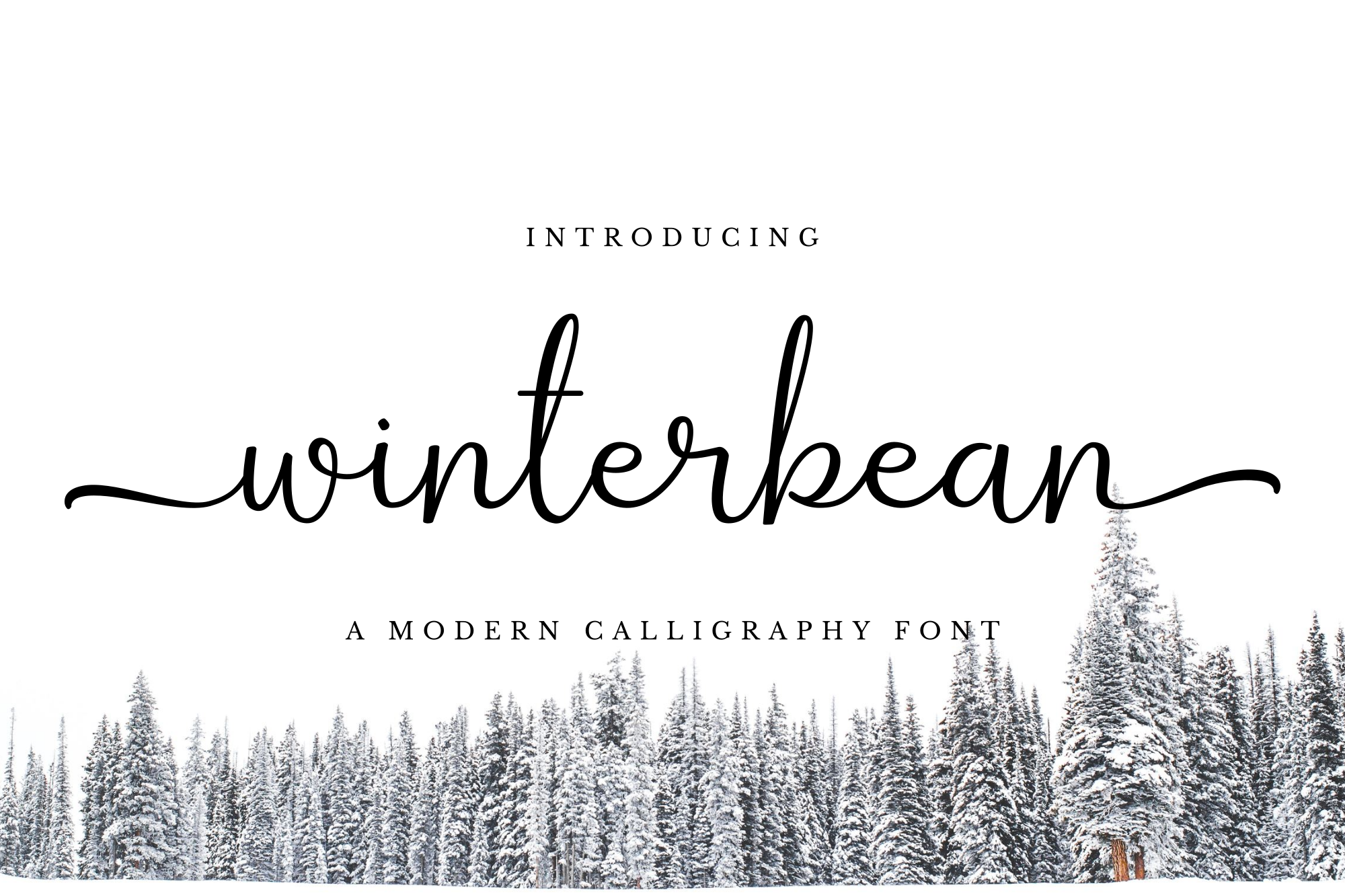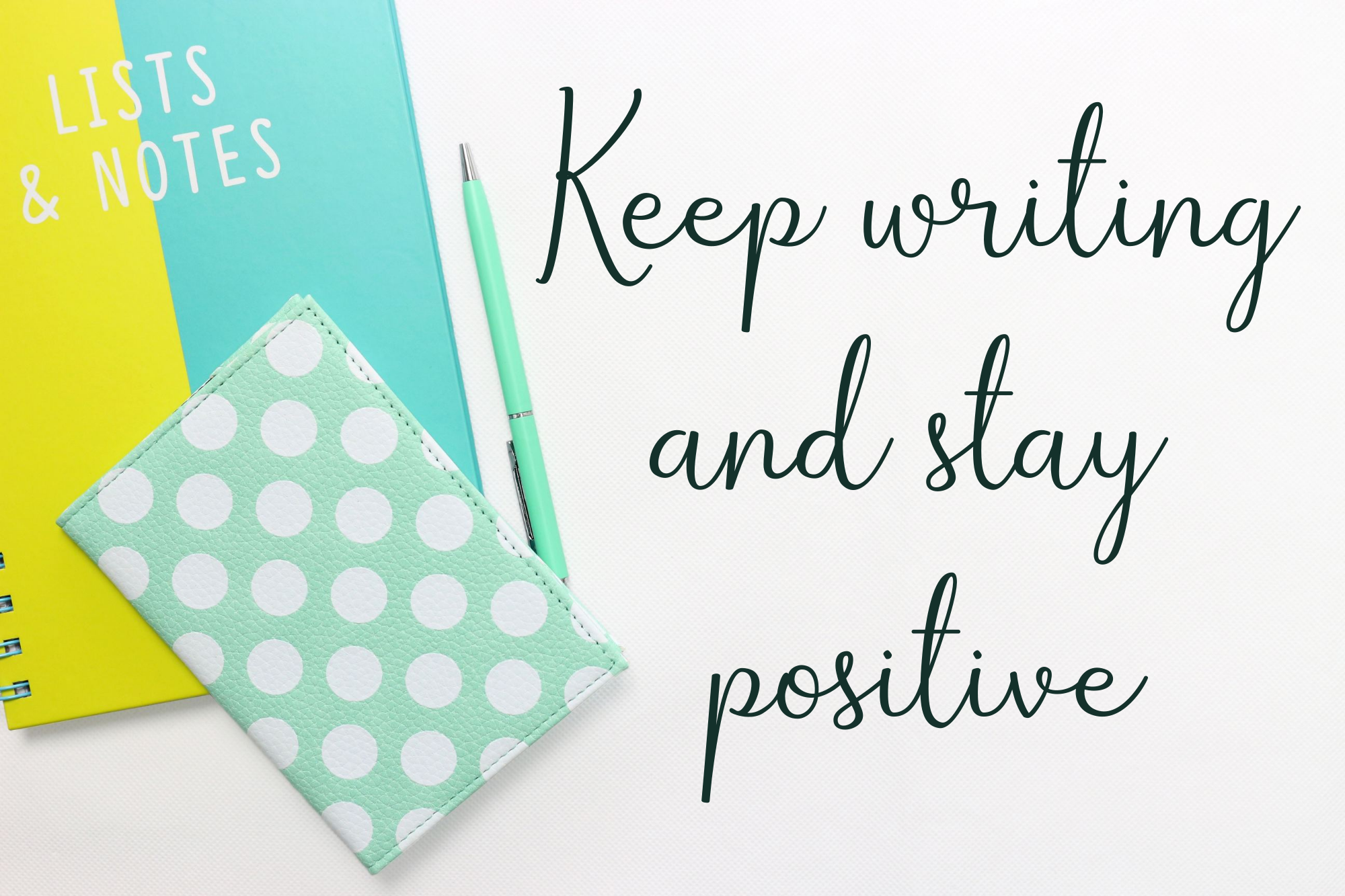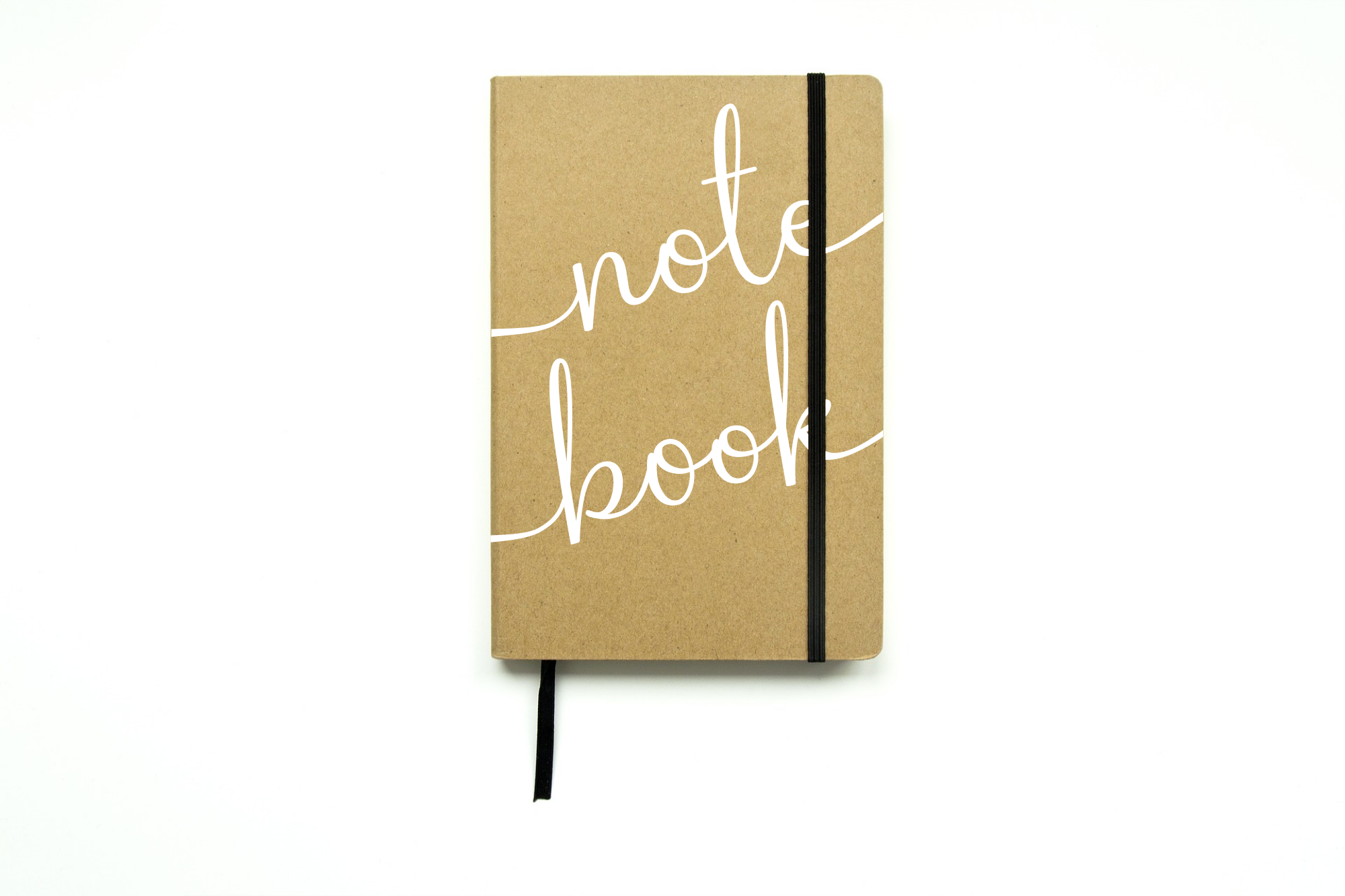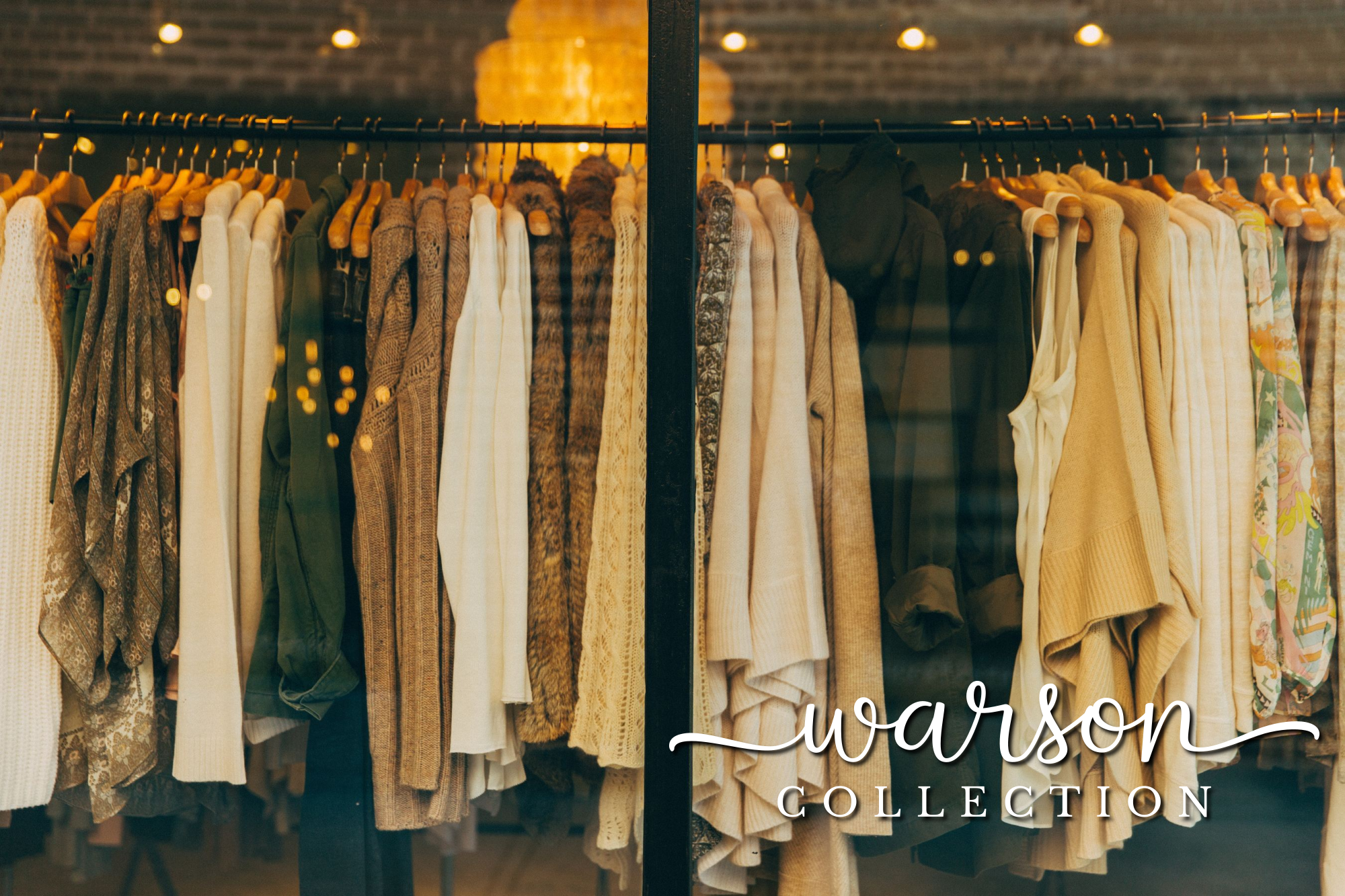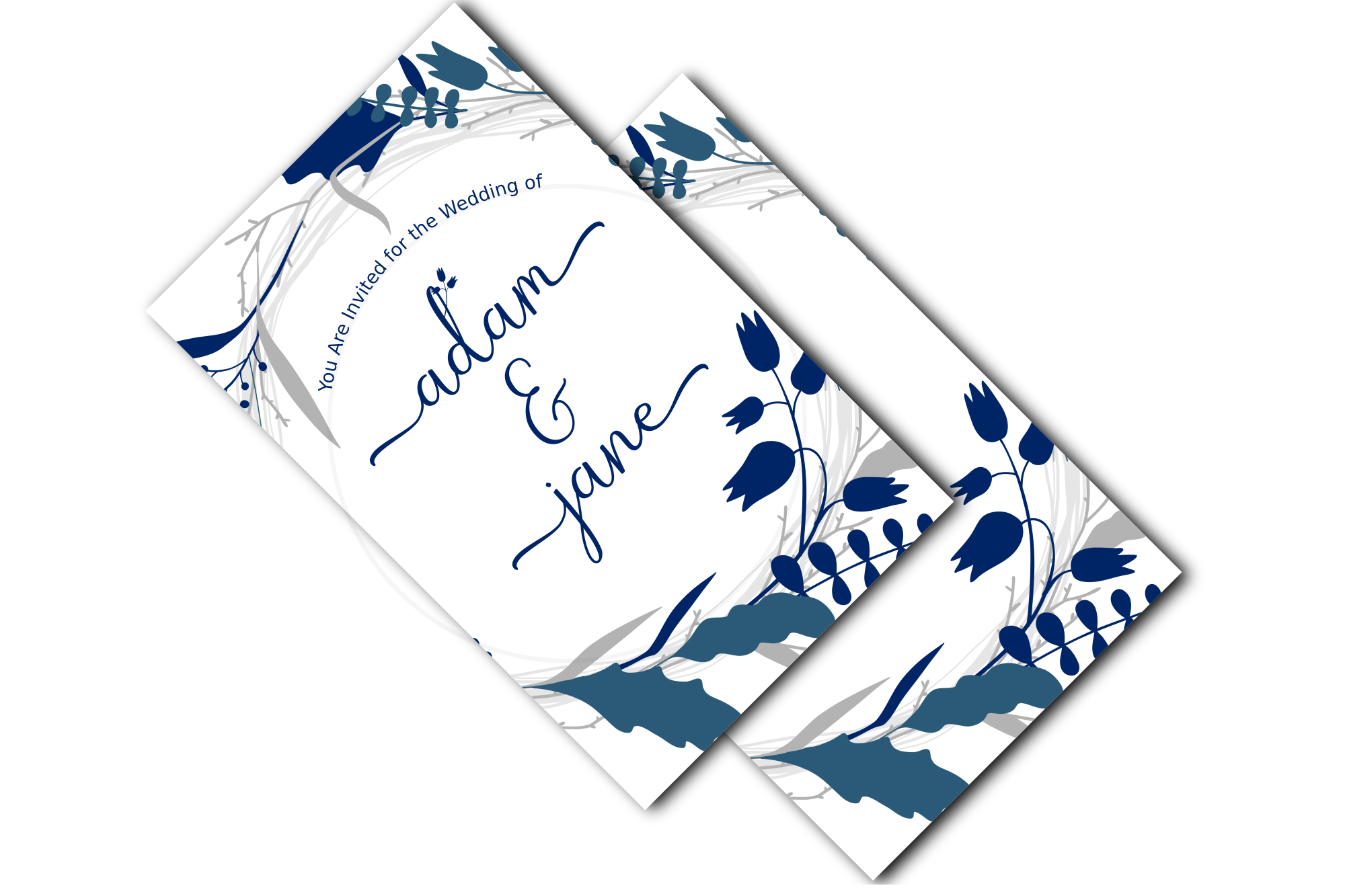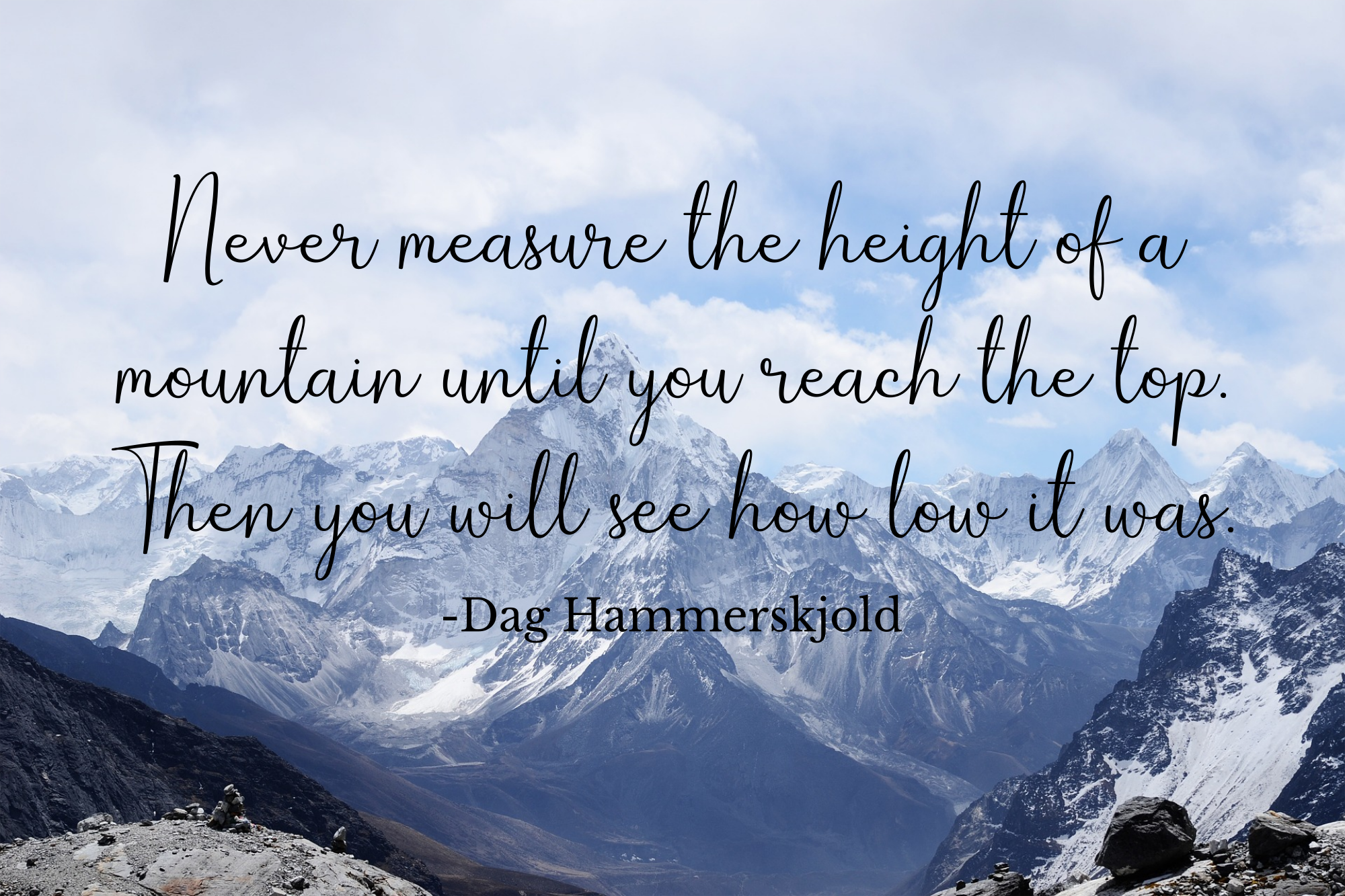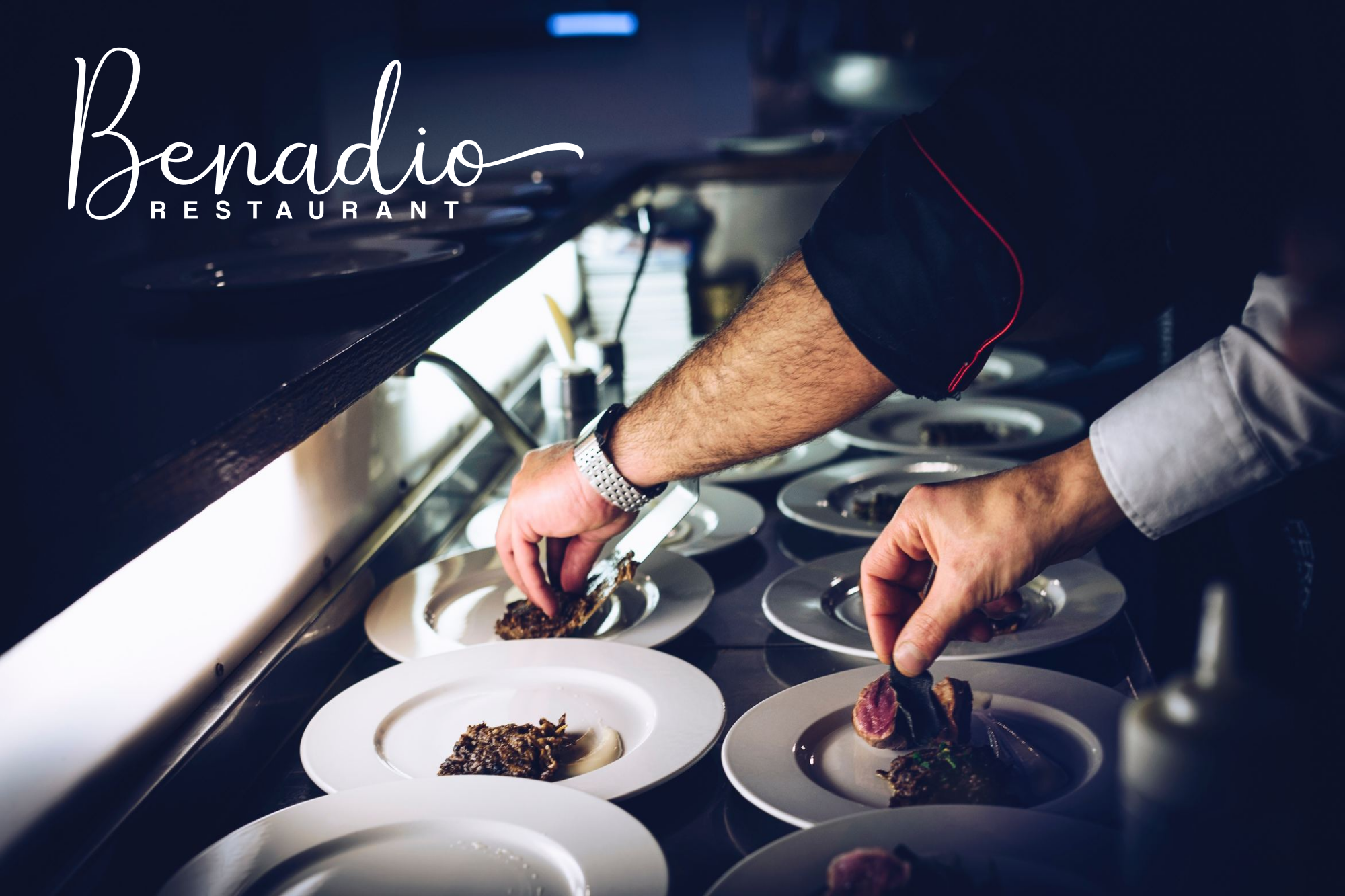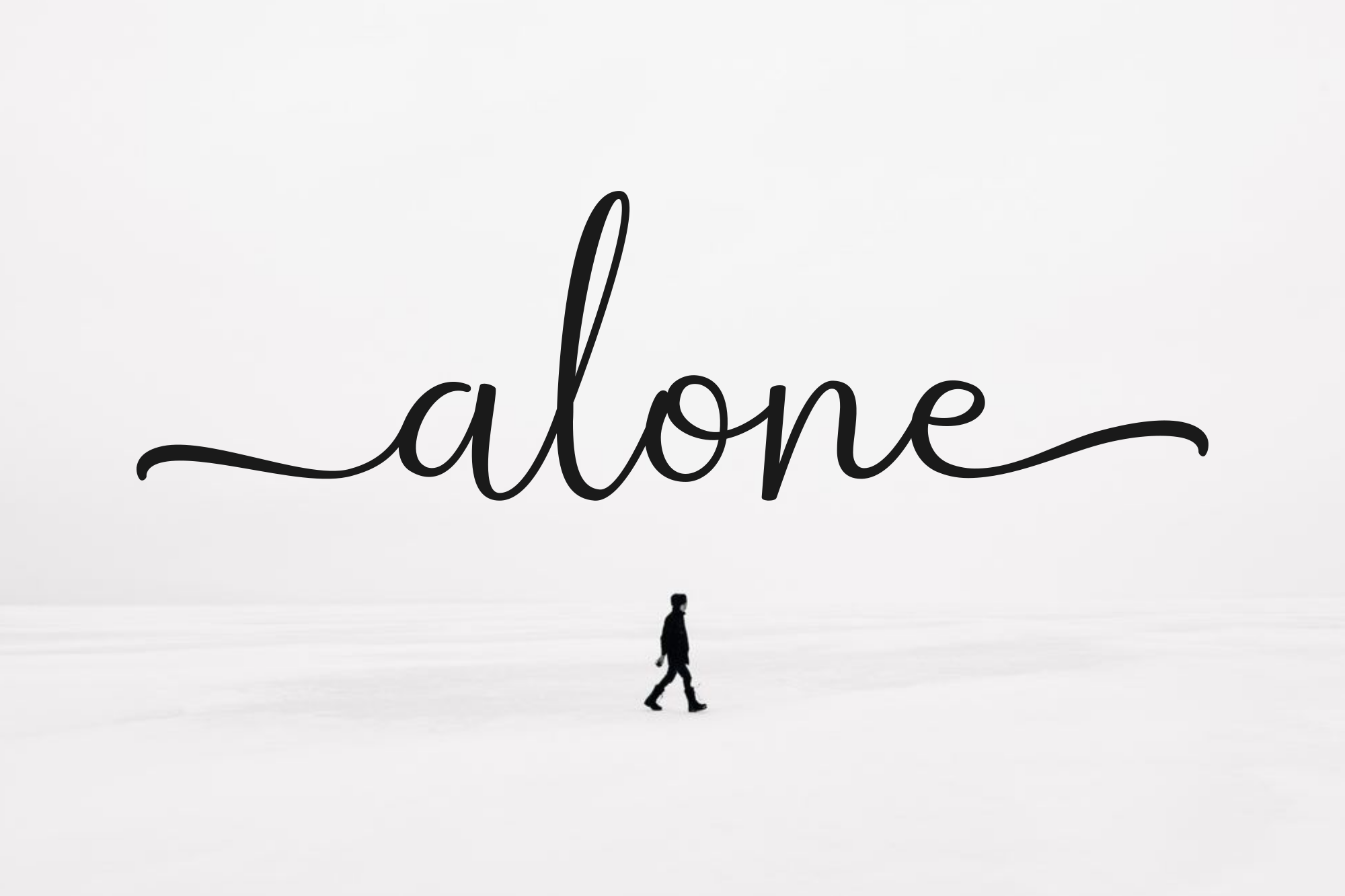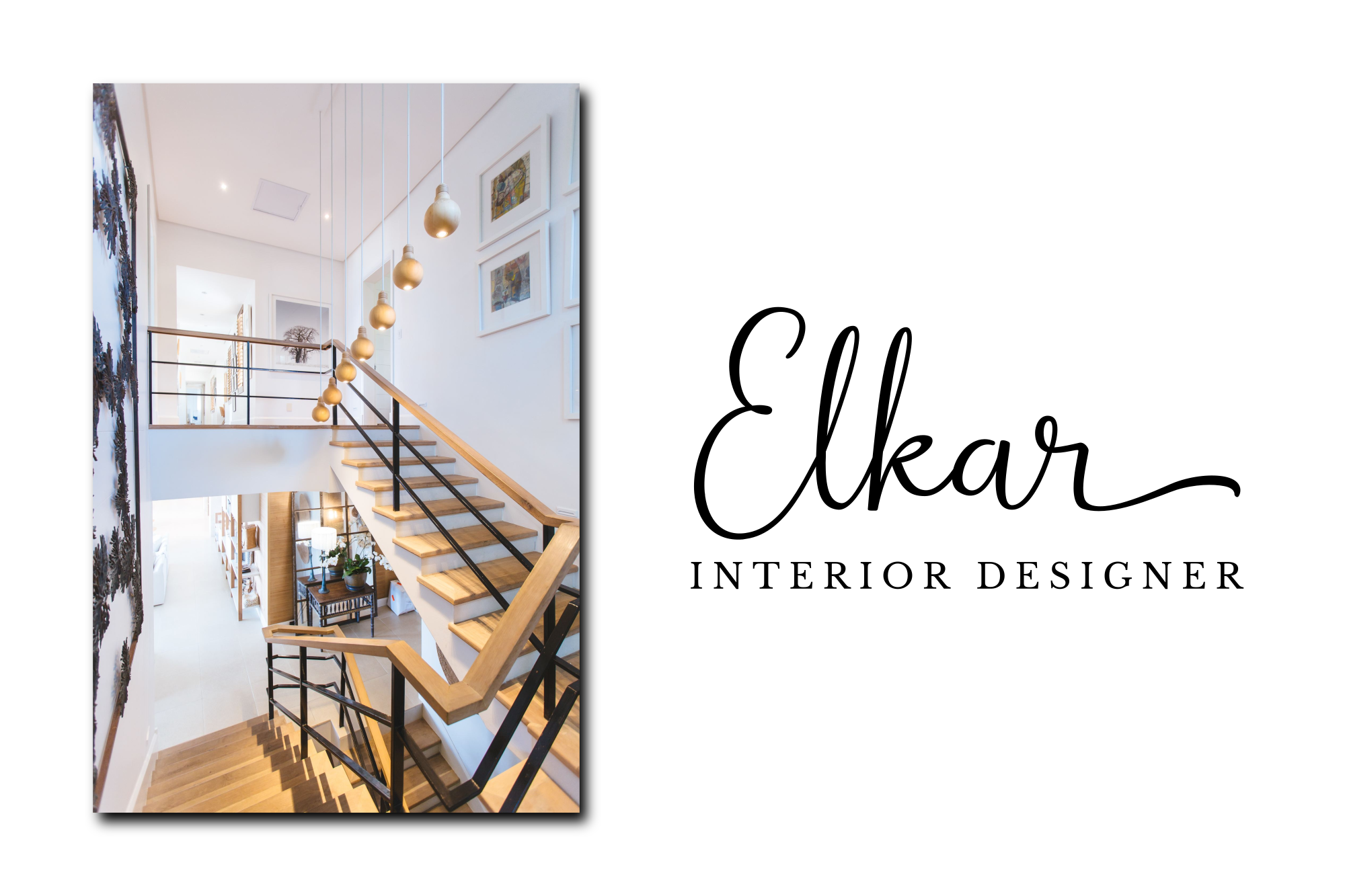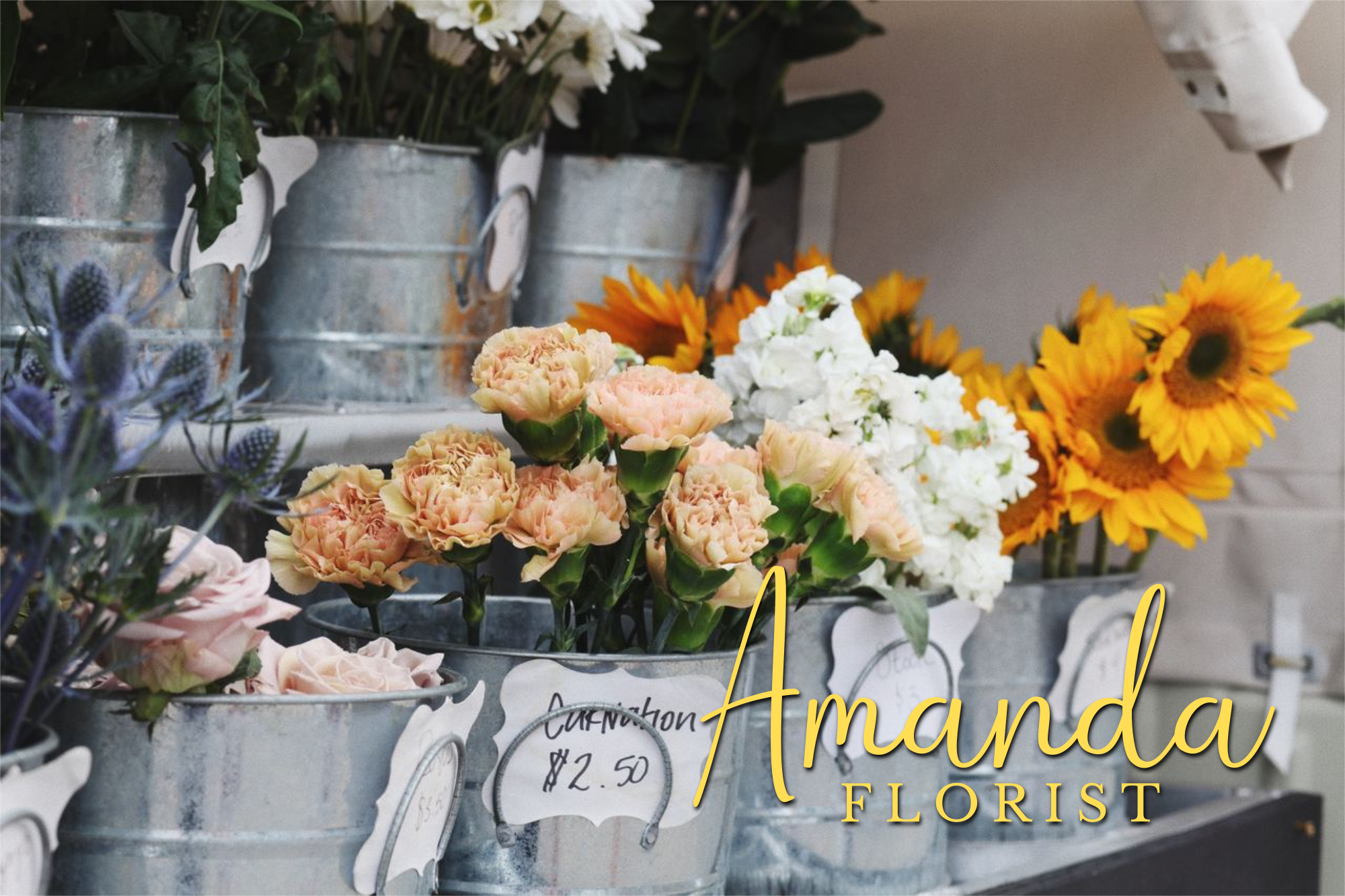
Winterbean - Modern Calligraphy Font
Winterbean is a beautiful modern calligraphy font with elegant alternates. It gives your designs a stylish and graceful handwritten look.
Winterbean is a beautiful modern calligraphy font with elegant alternates. It gives your designs a stylish and graceful handwritten look. It is perfect for logos, product packaging, wedding invitations, branding, headlines, signage, labels, signatures, book covers, posters, quotes, and more.